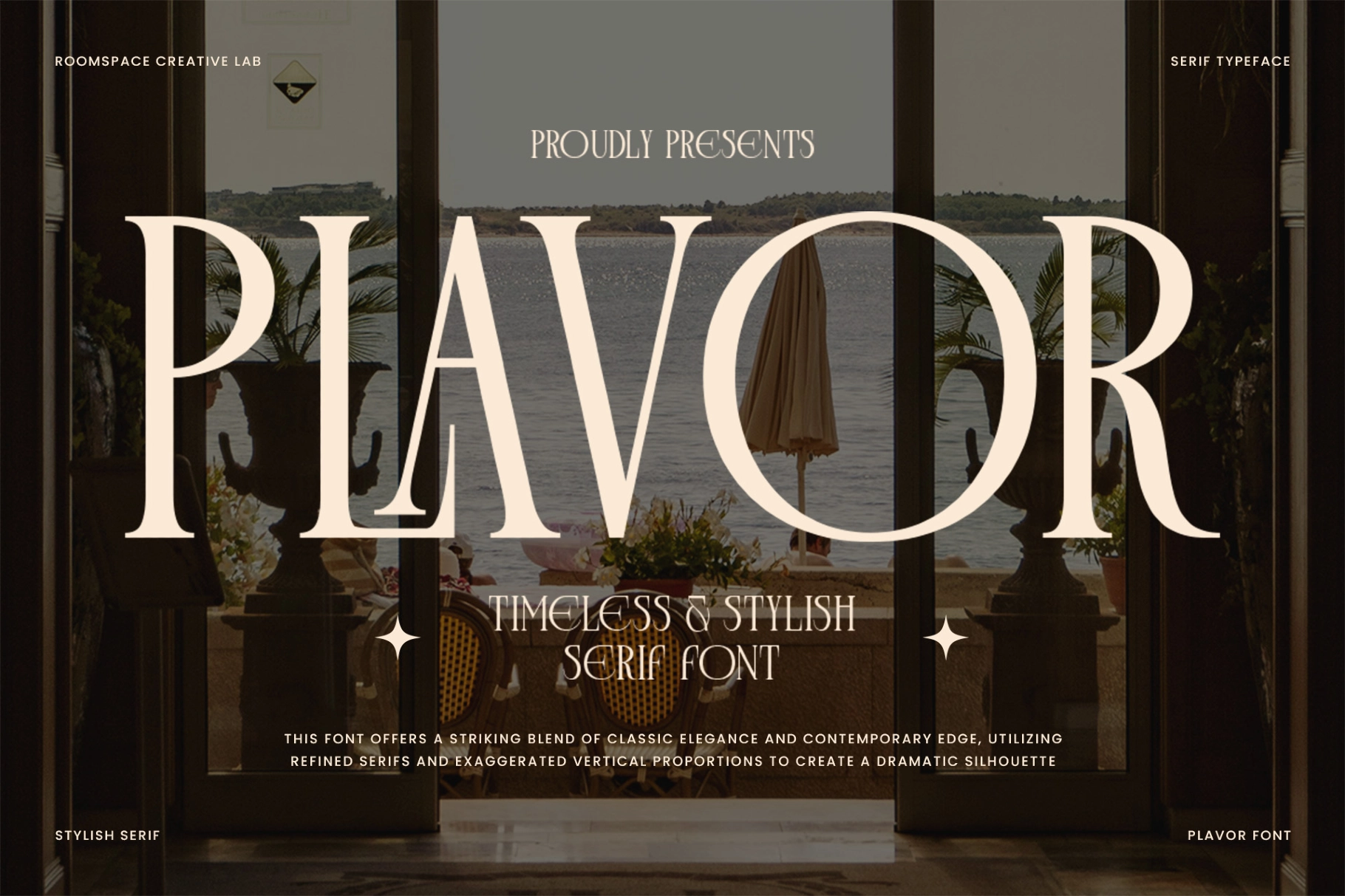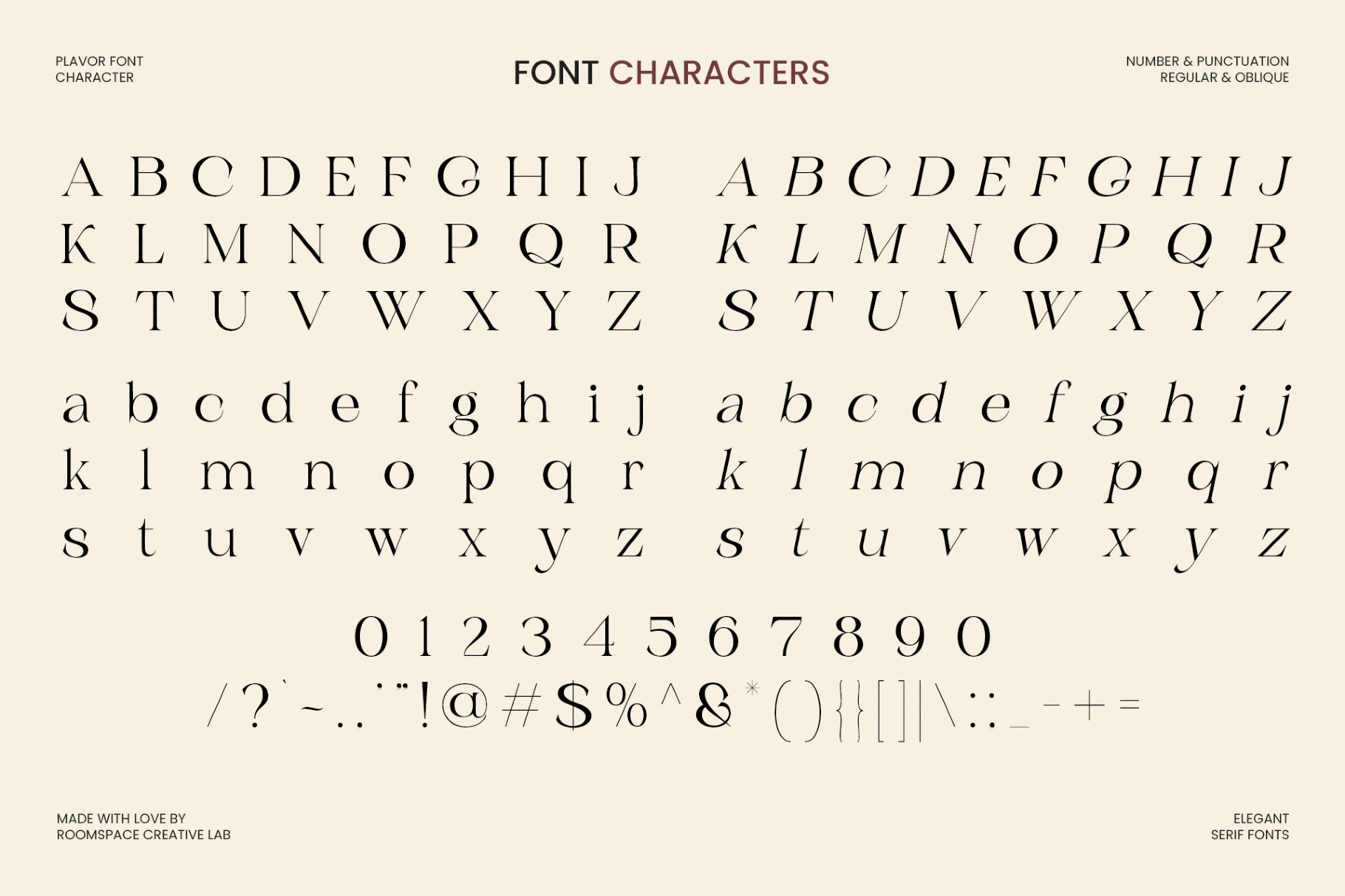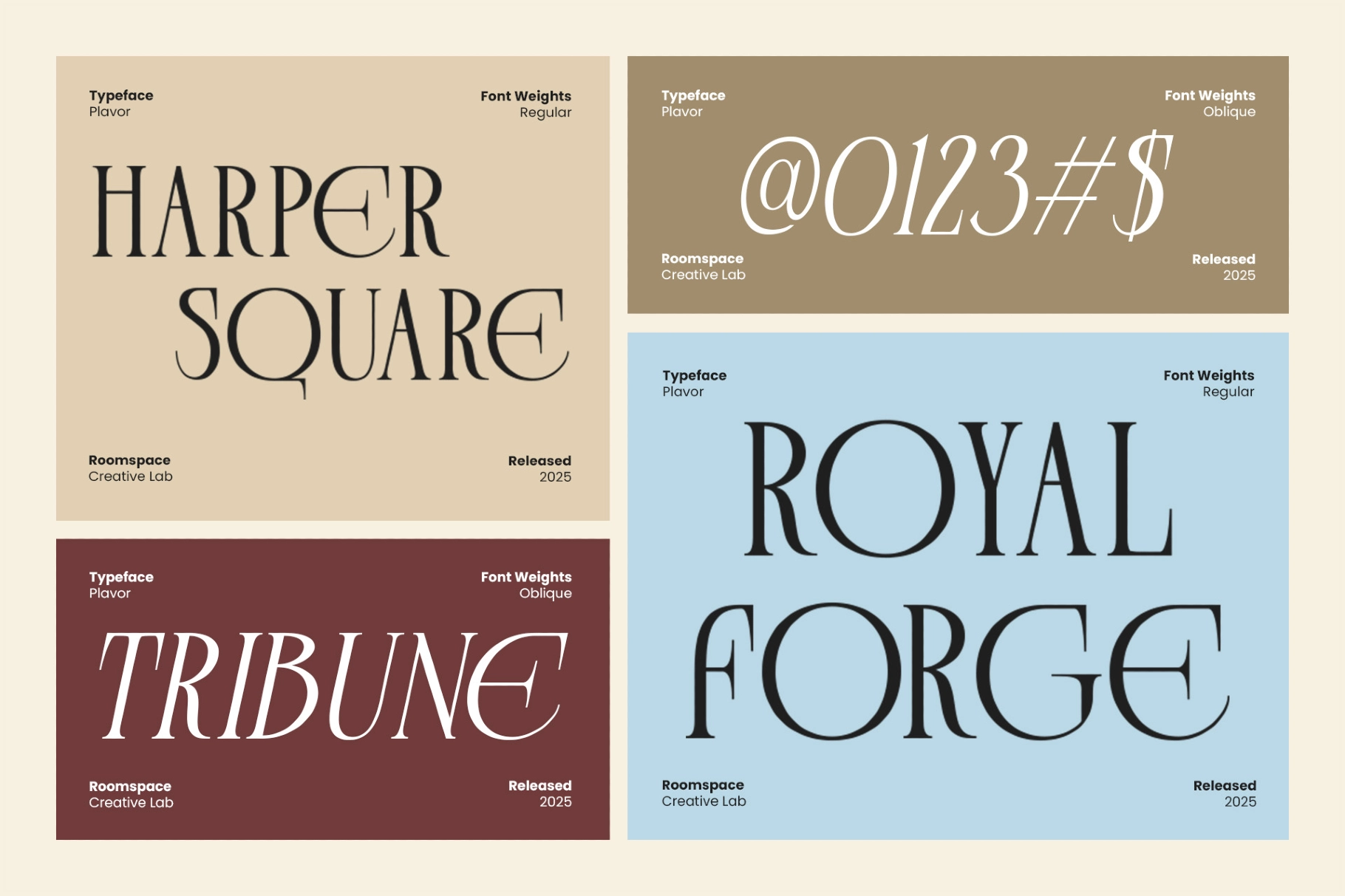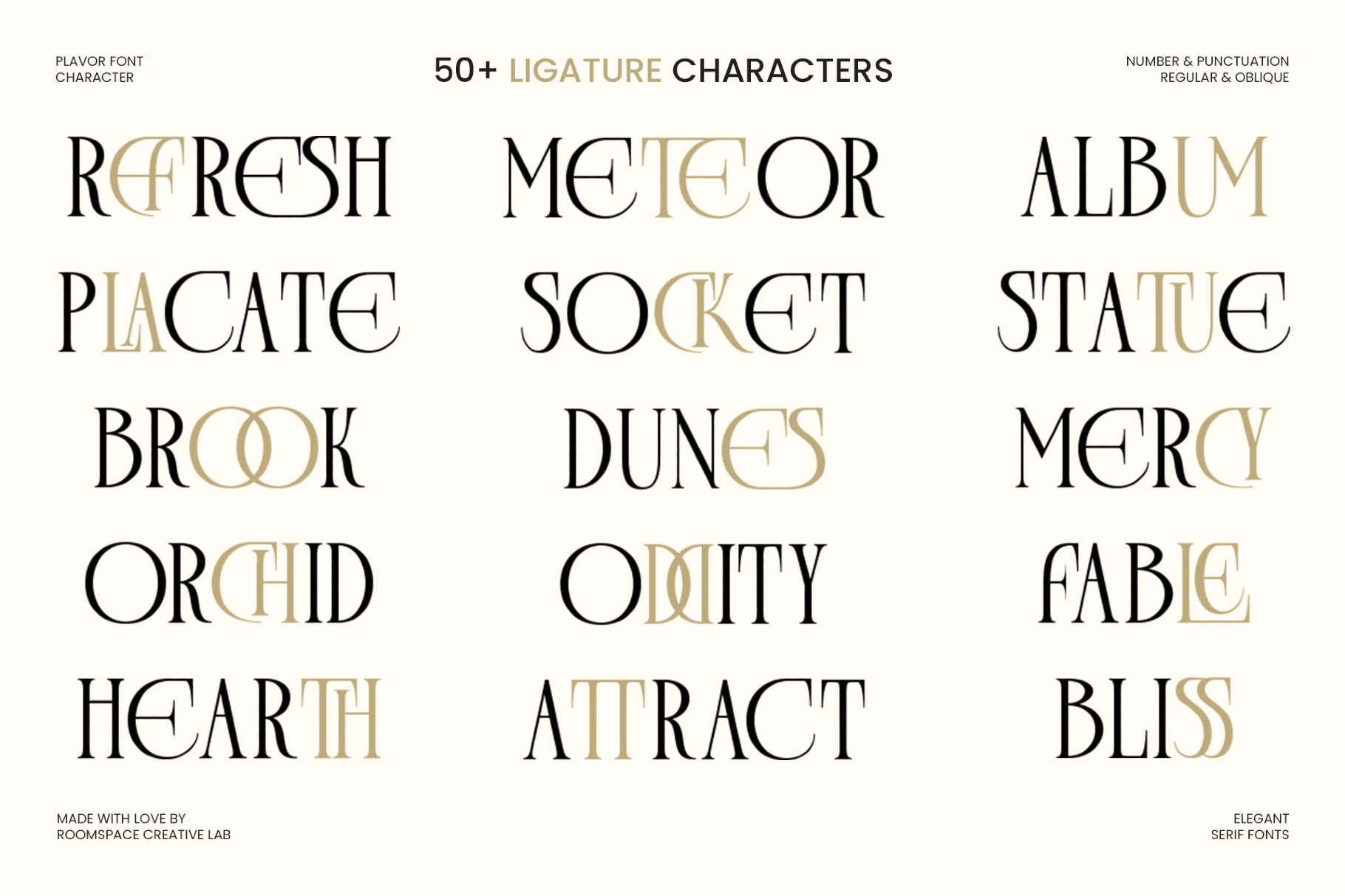
Plavor – Timeless Elegant Serif Font
Plavor is an elegant serif font with exaggerated vertical proportions, razor-thin hairlines, and high stroke contrast that gives headlines a sharp, editorial authority. The uppercase runs tall and narrow; the oblique cuts across with a restrained slant that adds motion without breaking the composed tone. Over 50 discretionary ligatures are built into the set — letter pairs share counters and overlap strokes in ways that make large-scale typesetting look considered rather than assembled.
It reads best at display sizes, where the contrast and proportions register fully. Use it for magazine titles, luxury brand identities, perfume and cosmetics packaging, fashion lookbooks, poster headlines, wedding stationery, logotypes, and editorial pull quotes.
- 50+ ligatures;